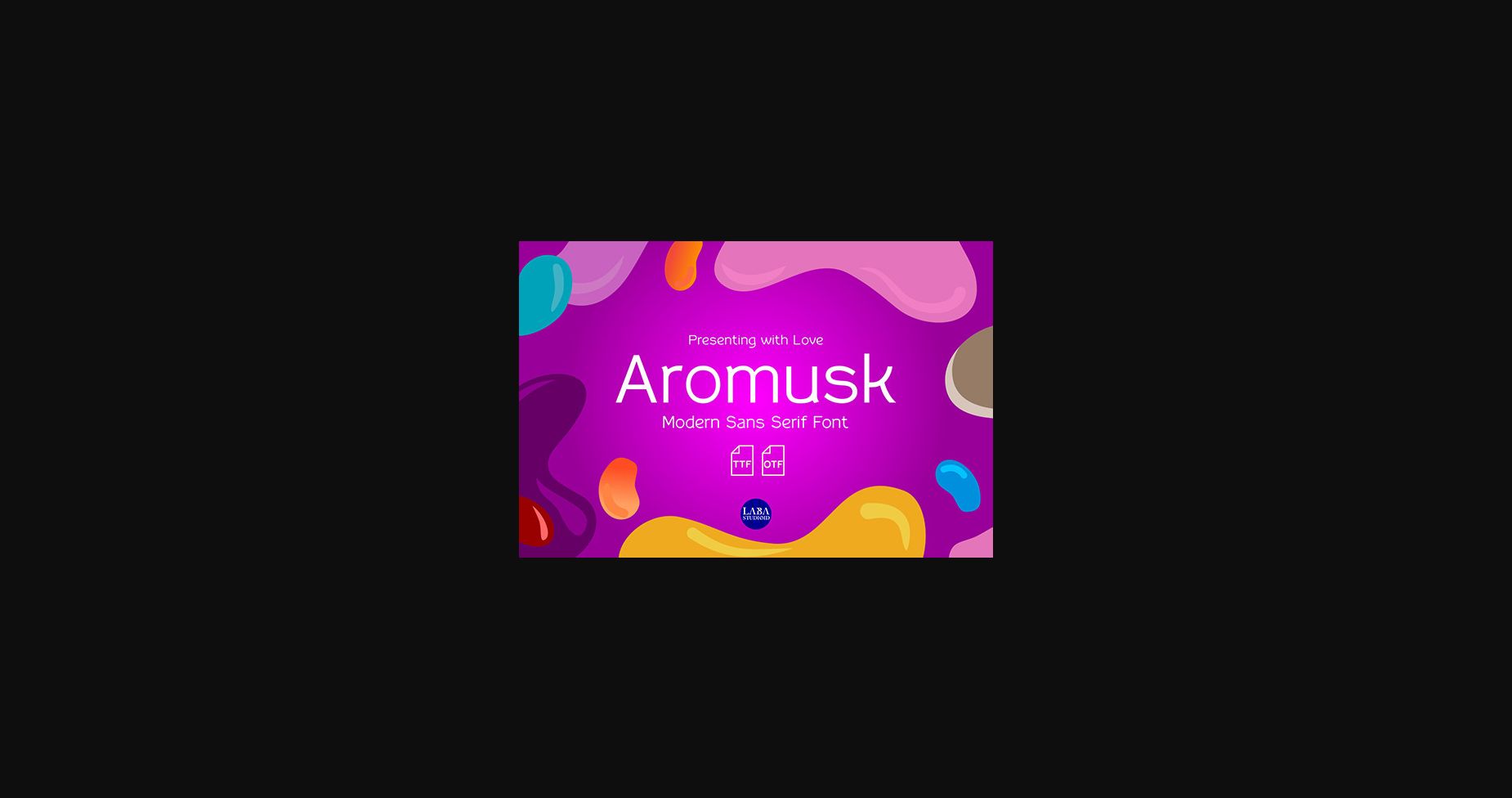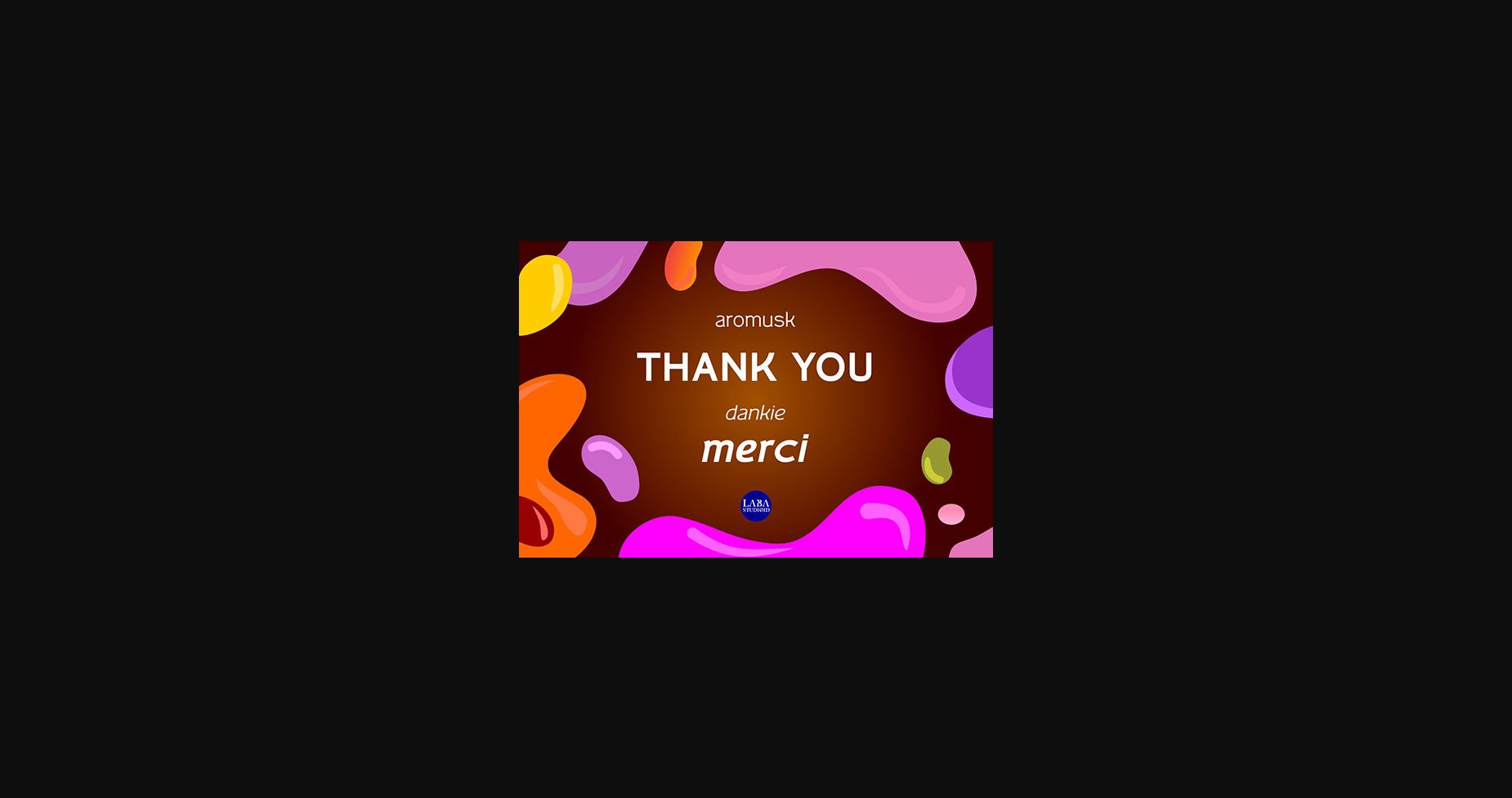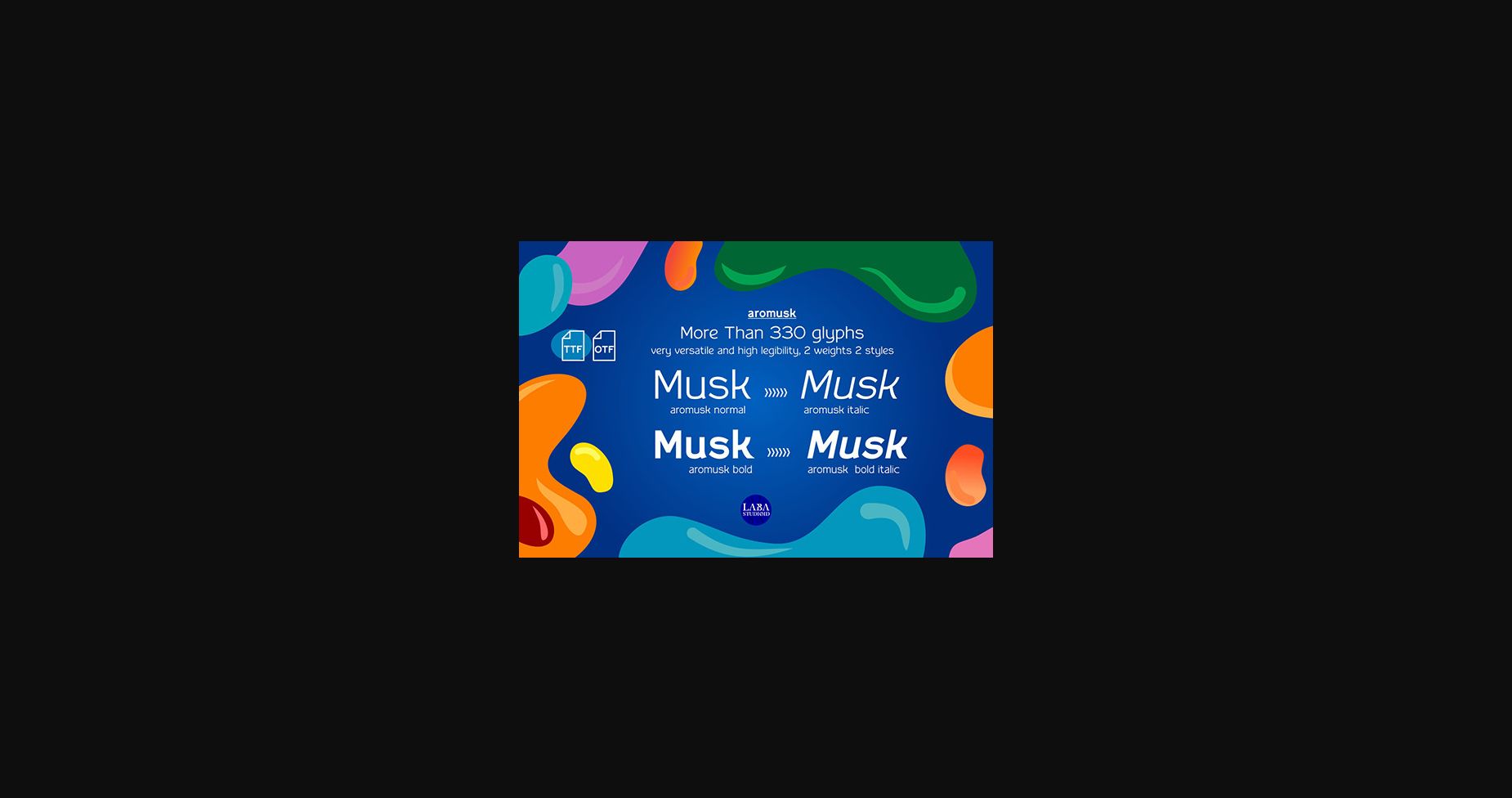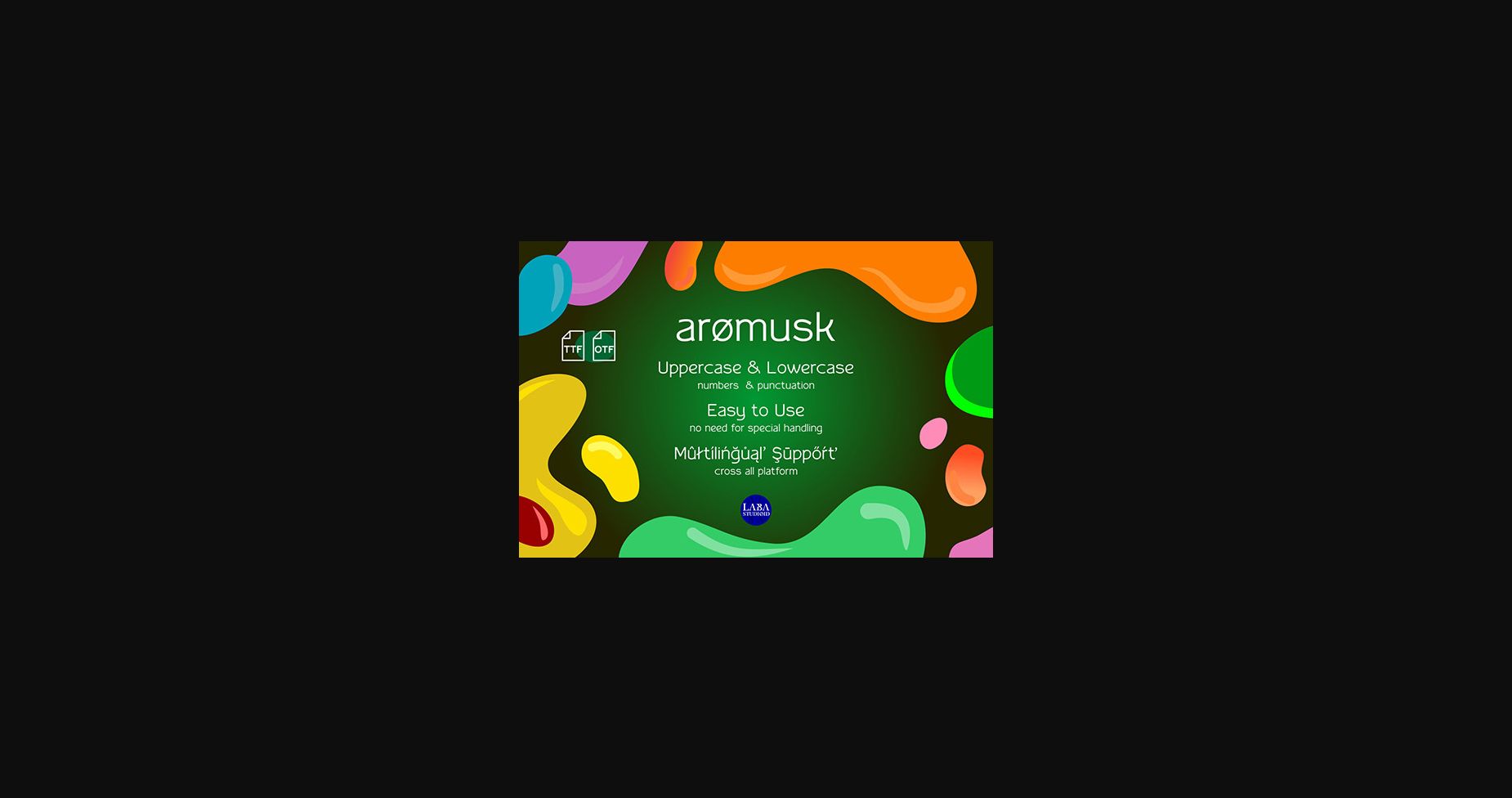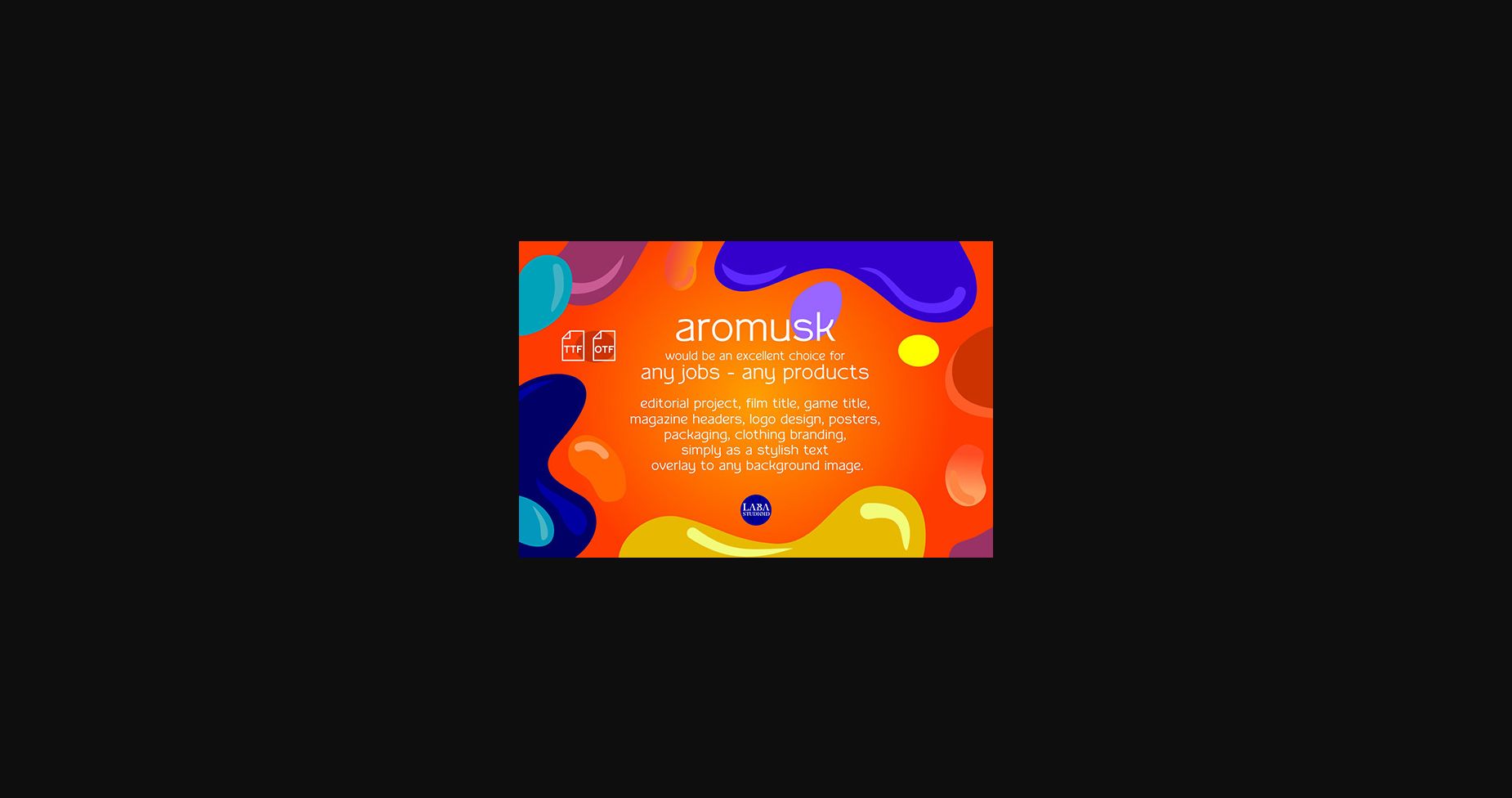
About Aromusk Font
Aromusk is a clean and modern looking sans serif font. It is perfect for any branding project such as logos, t-shirt printing, creative products, or pretty much anything that could benefit from a futuristic vibe.